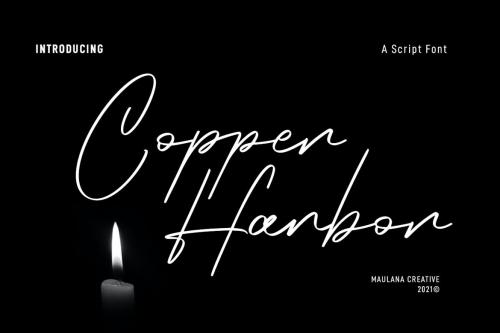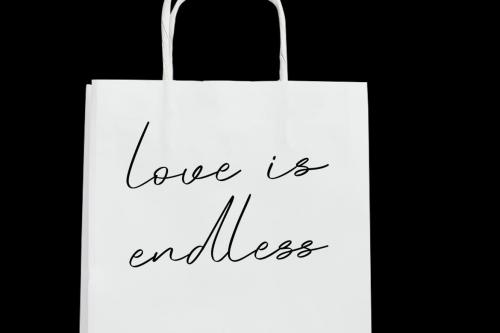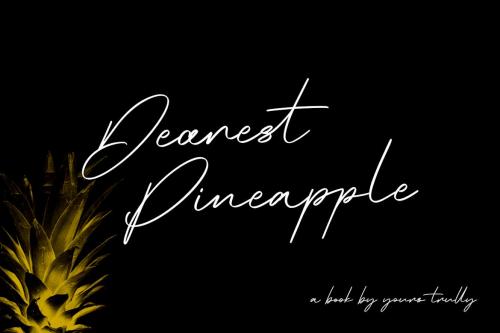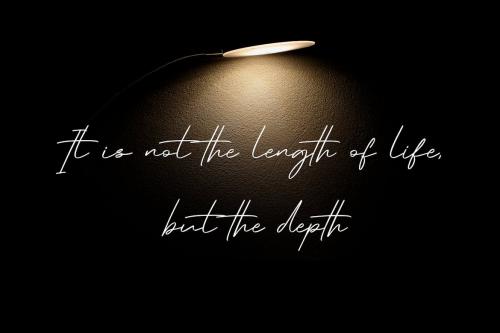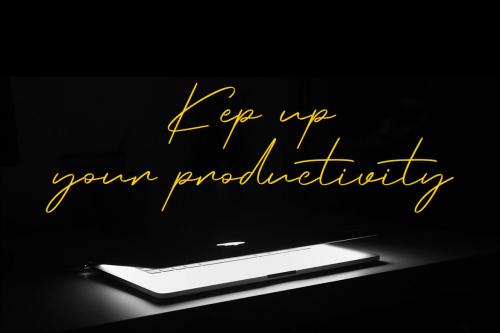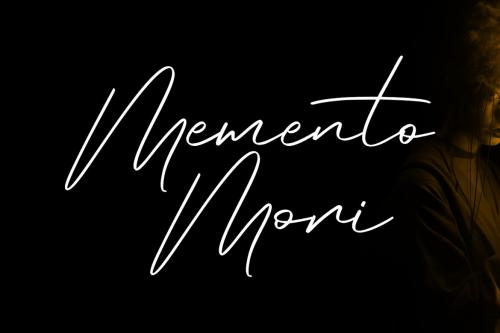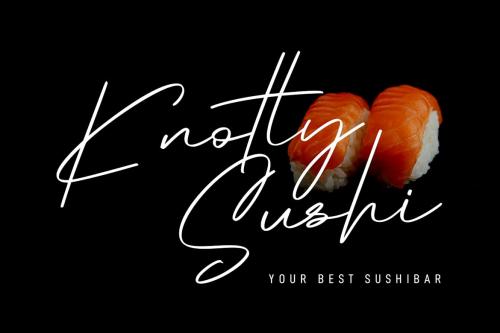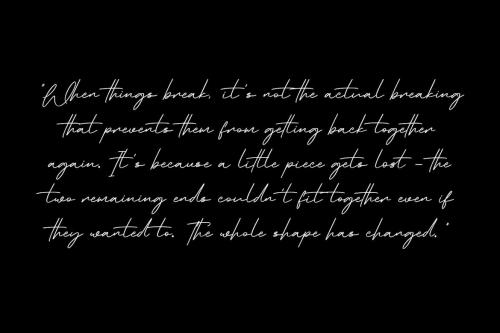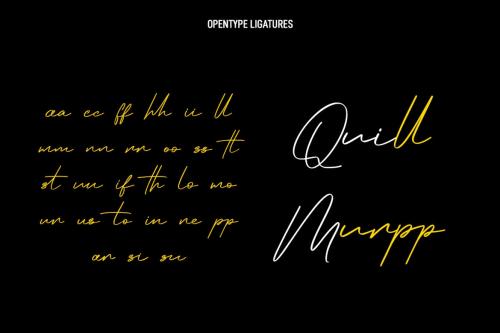
铜河手写体字体
Copper Harbor Script Font
Copper Harbor is a fancy script font. With regular stroke, fun character with a bit of ligatures. To give you an extra creative work. Copper Harbor font support multilingual more than 100+ language. This font is good for logo design, Social media, Movie Titles, Books Titles, a short text even a long text letter and good for your secondary text font with sans or serif. Make a stunning work with Copper Harbor font.